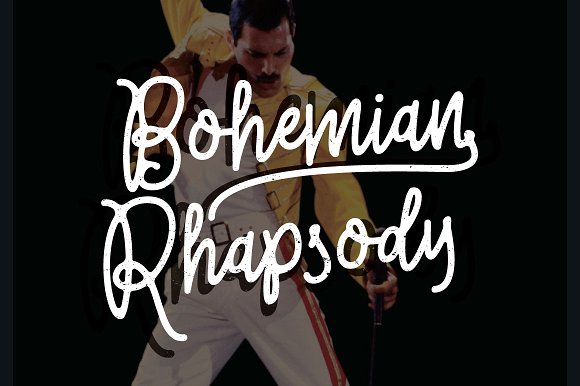
Introduction to Prasto Font
Have you ever been stuck on a creative project, staring at a blank page, waiting for inspiration to strike? It’s a familiar feeling for many designers. But what if I told you that sometimes, all it takes is a little nudge in the right direction to get those creative juices flowing again? For me, that nudge came in the form of the Prasto Font, a fun and modern handwritten monoline font that’s perfect for adding a touch of personality to any design project.
The Prasto Font, created by the talented Ian Mikraz, is a game-changer for designers looking for a unique and high-quality font to elevate their work. With two variations to choose from – Clean and Rough – this versatile font is a must-have for any design resource. Whether you’re working on a personal project or a client-based design, the Prasto Font is sure to add a touch of sophistication and style to your work.
- Unique characteristics: elegant, modern, and minimalist style with clean lines
- Perfect for use in various design applications, including logos, headings, and body text
Honest Review: Prasto Font
I recently stumbled upon the Prasto Font and I’m excited to share my thoughts on this design resource. As a designer, I’m always on the lookout for high-quality fonts to elevate my creative projects.
- ✨ Elegant and modern design: The Prasto Font has a sleek and sophisticated look that’s perfect for a wide range of creative projects.
- ⚠️ Limited font styles: While the Prasto Font is elegant, it’s limited to a single style, which might not be suitable for projects requiring multiple font variations.
- ⚠️ Not suitable for complex text: The font’s design might not be ideal for complex text arrangements, such as those found in technical or scientific documents.
Overall, I’m impressed with the Prasto Font’s design and features. While it may have some limitations, it’s a great addition to any designer’s toolkit. If you’re looking for a high-quality font for your next creative project, I’d definitely recommend giving the Prasto Font a try.